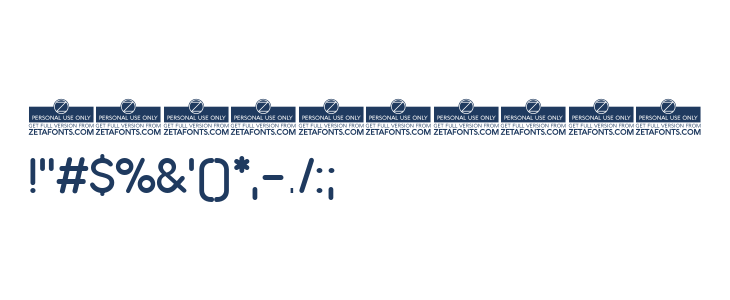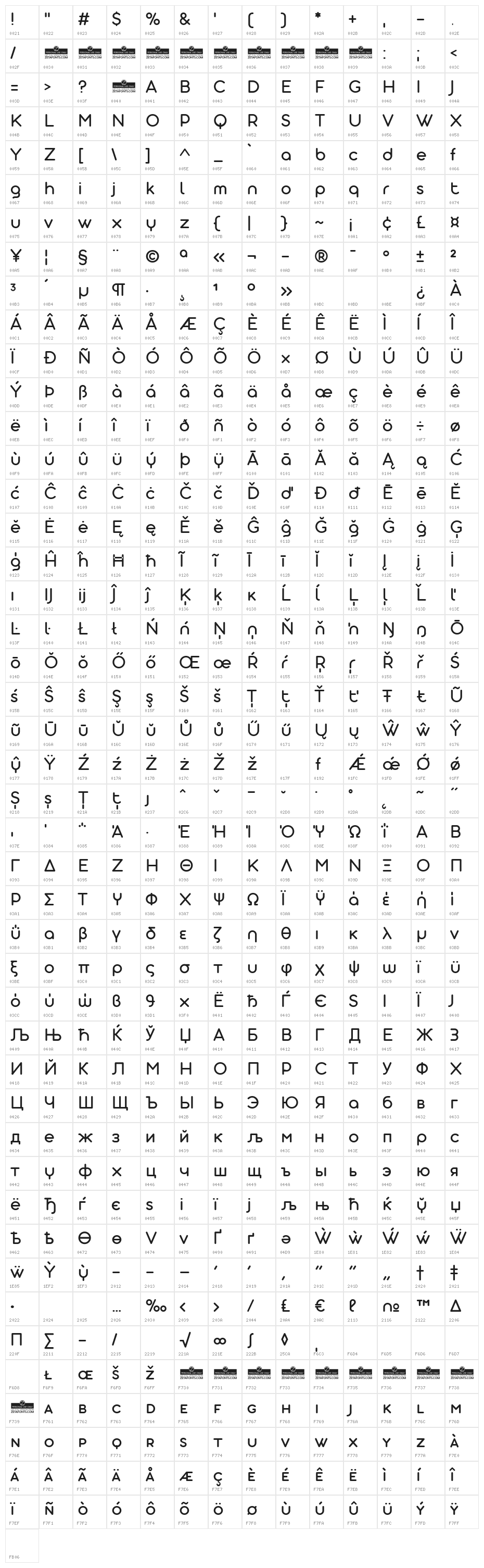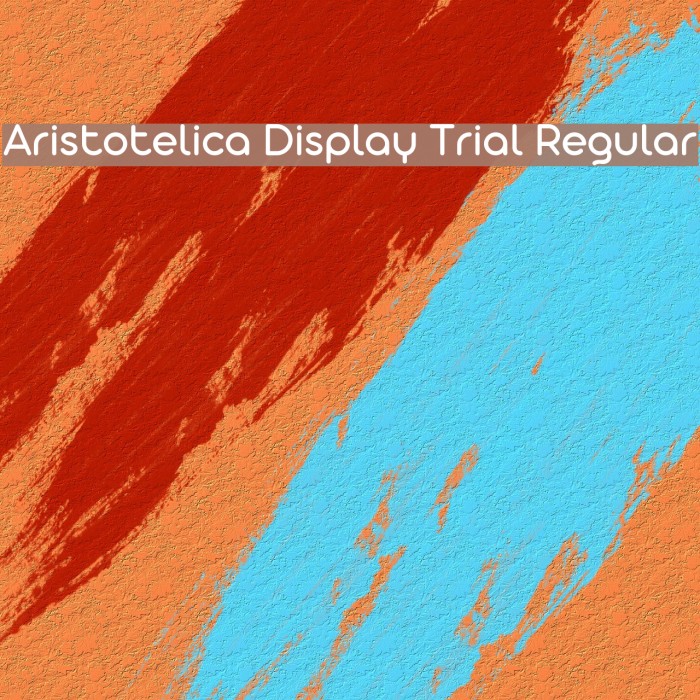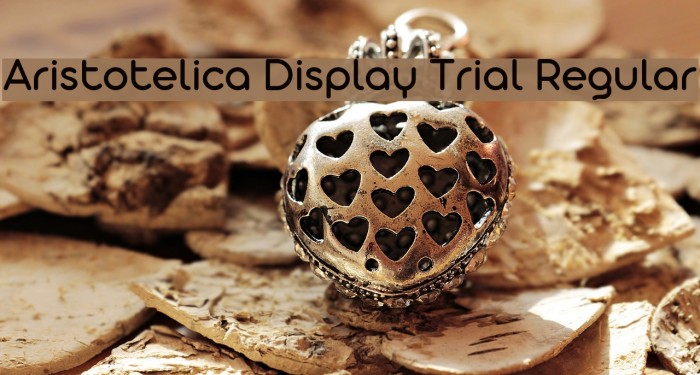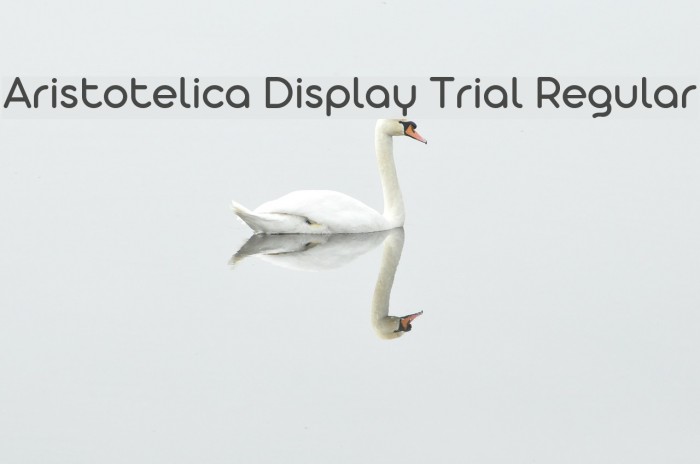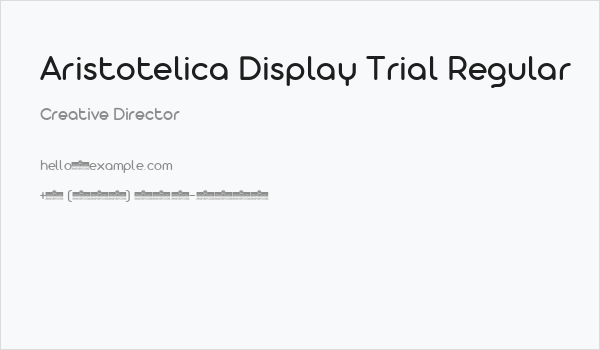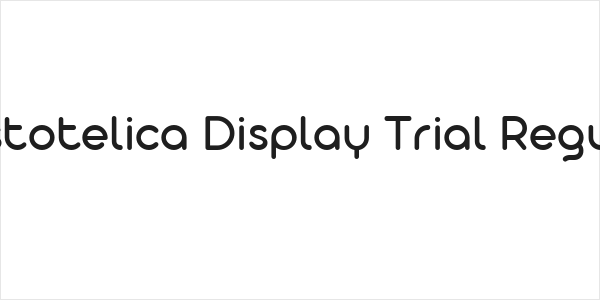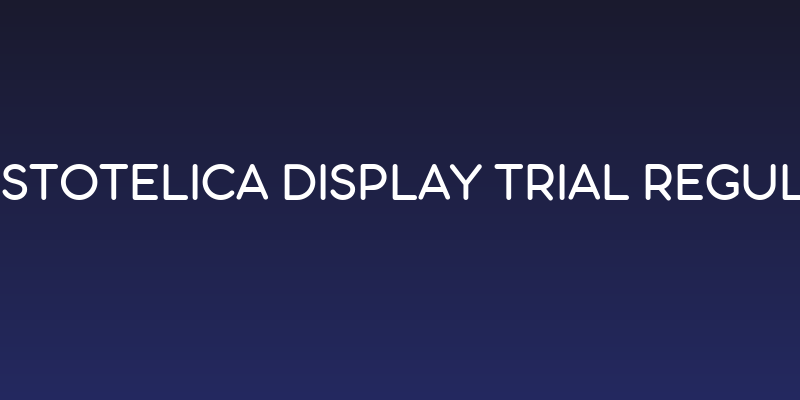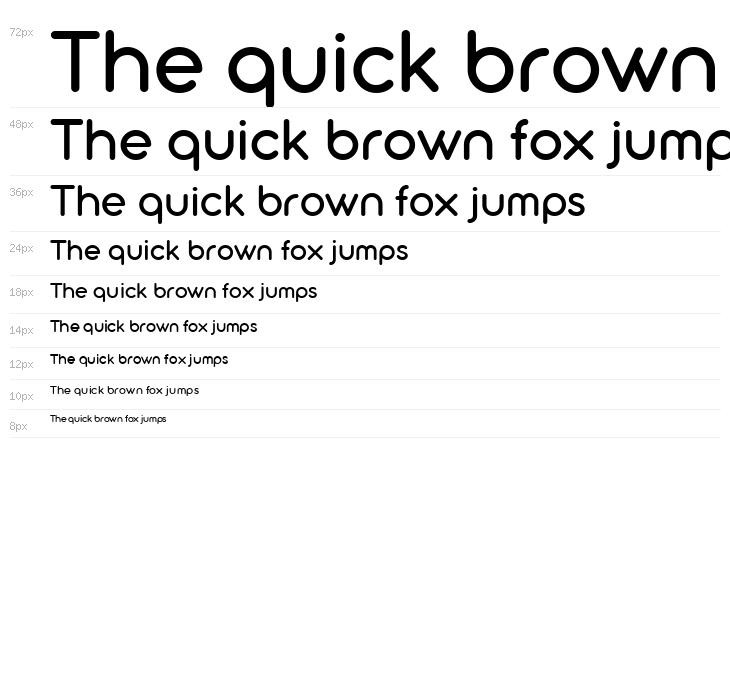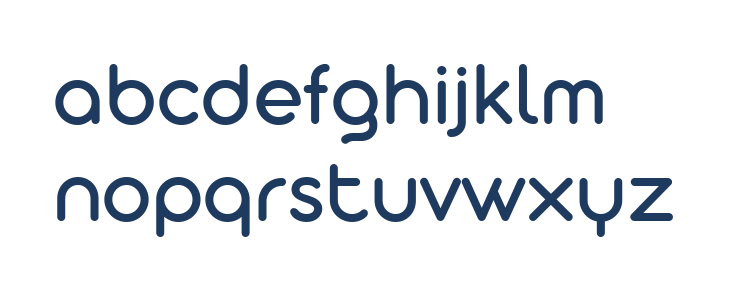
Aristotelica Display Trial Regular Font
Aristotelica Display Trial Regular Description
This font features a clean and modern design with rounded edges, giving it a friendly and approachable appearance. The characters are evenly spaced, contributing to its readability. The uppercase letters are bold and prominent, while the lowercase letters maintain a consistent style that complements the uppercase. The numerals are clear and distinct, making them easily legible. The special characters are well-integrated, maintaining the overall aesthetic of the font. Its simplicity and clarity make it suitable for a variety of design projects.
| Proposed Projects | Ideal for branding, advertising, web design, and user interfaces. |